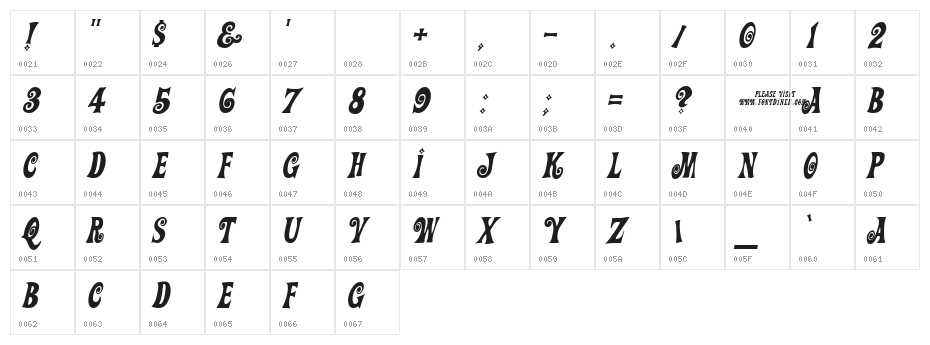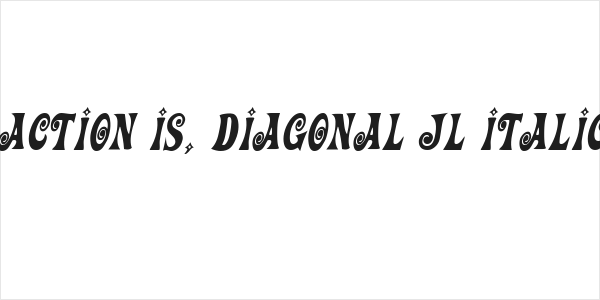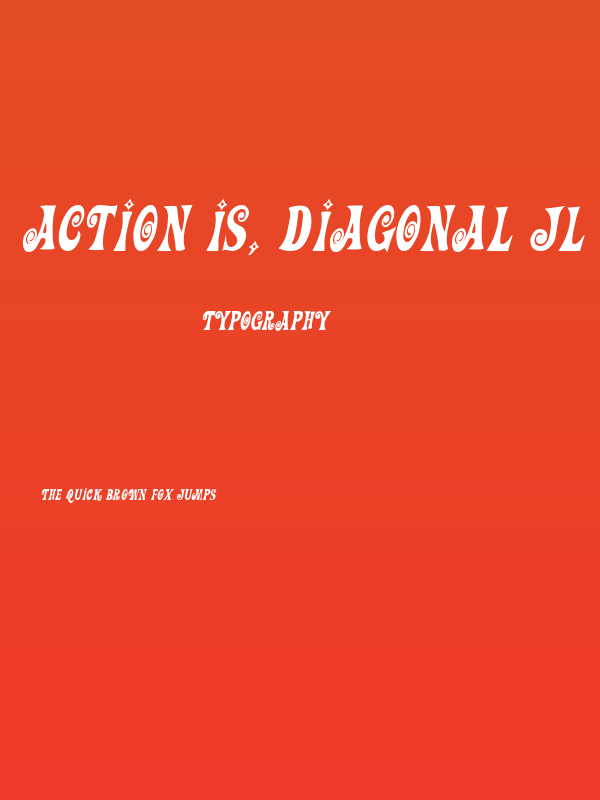
Action Is, Diagonal JL Italic Font
Action Is, Diagonal JL Italic Description
This font features a bold and dynamic design with a distinct diagonal slant, giving it an energetic and playful appearance. The characters are adorned with unique, swirling embellishments that add a whimsical touch. The uppercase letters are particularly striking, with exaggerated curves and flourishes that make them stand out. The numbers and special characters maintain this decorative style, ensuring consistency throughout the font. Its bold weight and high contrast between thick and thin strokes enhance its visibility and impact, making it suitable for eye-catching designs.